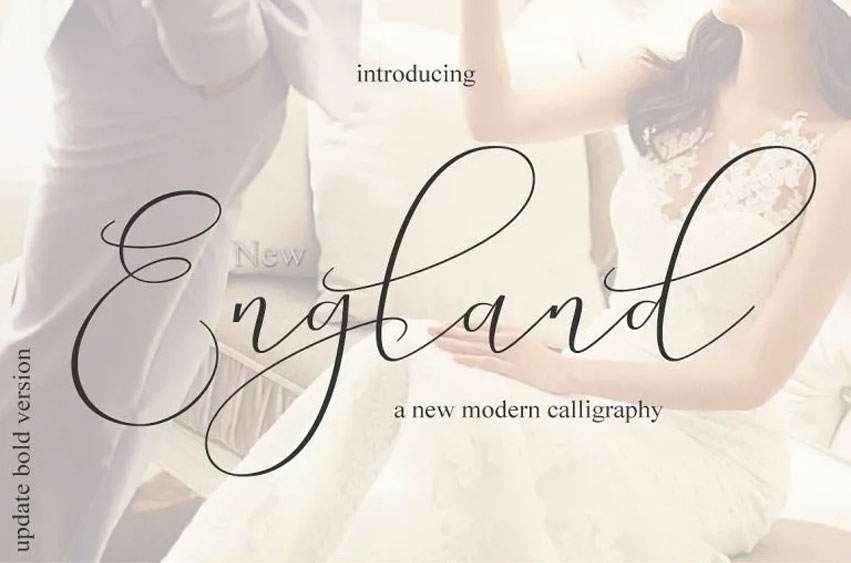
New England Script Font
New England Script Font is a modern calligraphy style. It is a creation and distribution of MrLetters. New England is a modern calligraphy font with the current handwriting style, which gives it a soft character.
This makes the font suitable for design in signature series style, logo photography, wedding theme, beauty products and classic letters as well as neon lights with colorful effects.